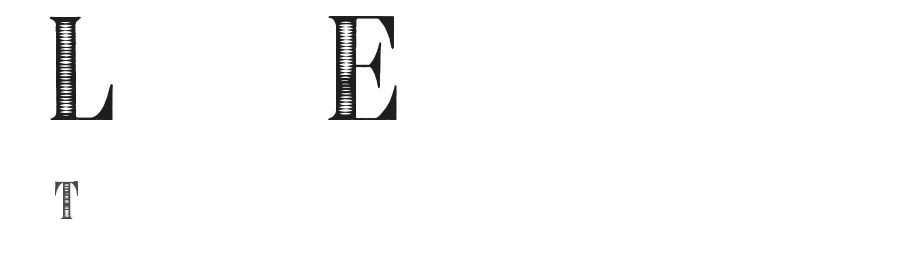
About Leidenschaft Font
Leidenschaft is a decorative font designed by AuronValentine. It includes 69 glyphs, a regular weight, TTF (TrueType) format, and 89 languages. Leidenschaft is free to download; check the license details on this page before commercial use. Decorative fonts like Leidenschaft work best for logos, posters, packaging, and standout headlines.
Leidenschaft Font is a decorative font that shines as a display or heading face. Pair it with a clean sans-serif or serif font for body text β the contrast creates a clear hierarchy while the two styles stay balanced and easy to read.
Leidenschaft Font
Leidenschaft Font is a decorative typeface by AuronValentine, ideal for logos, invitations, branding, and creative projects.